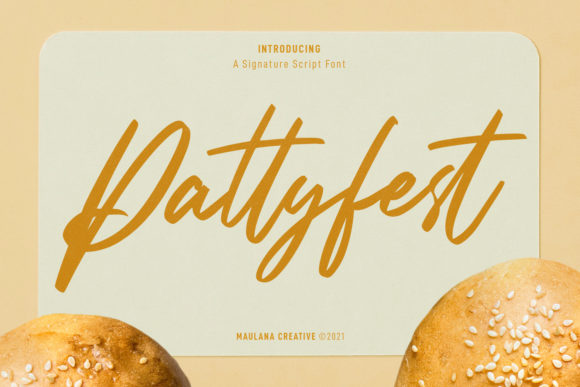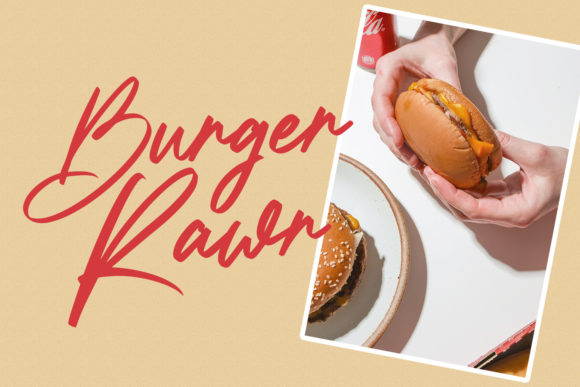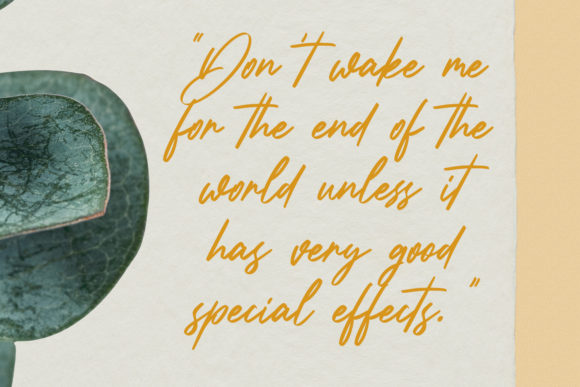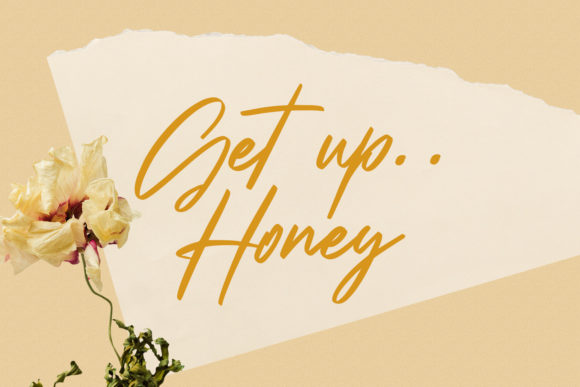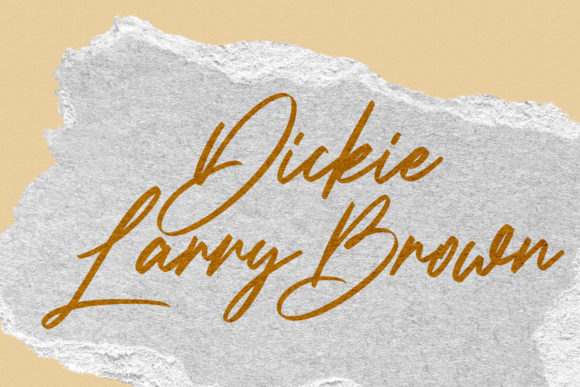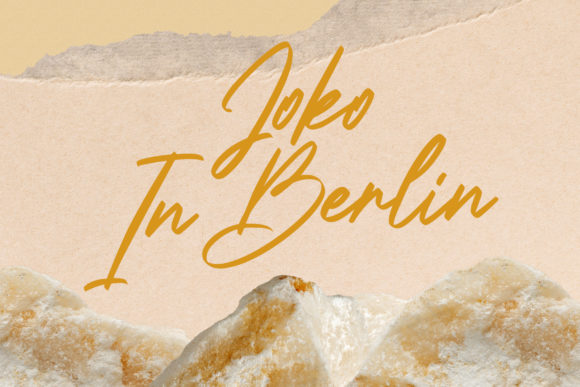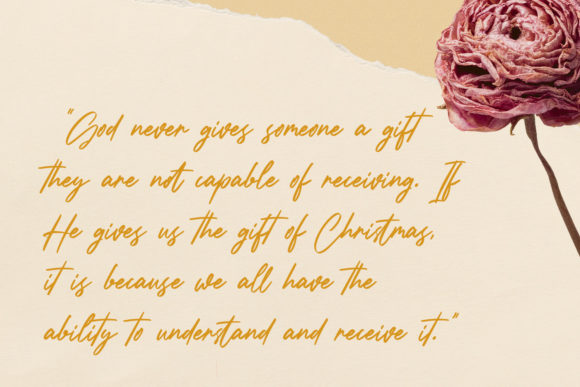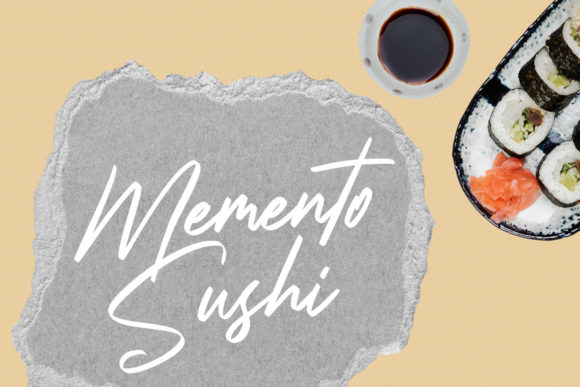
About Pattyfest Font
Pattyfest is a casual script font that follows the regular felt tip stroke and has fun characters with a bit of ligature. This font is good for logo design, social media, movie titles, books titles, short text even long text letters. Add it to any of your creative projects and you’ll have stunning results.